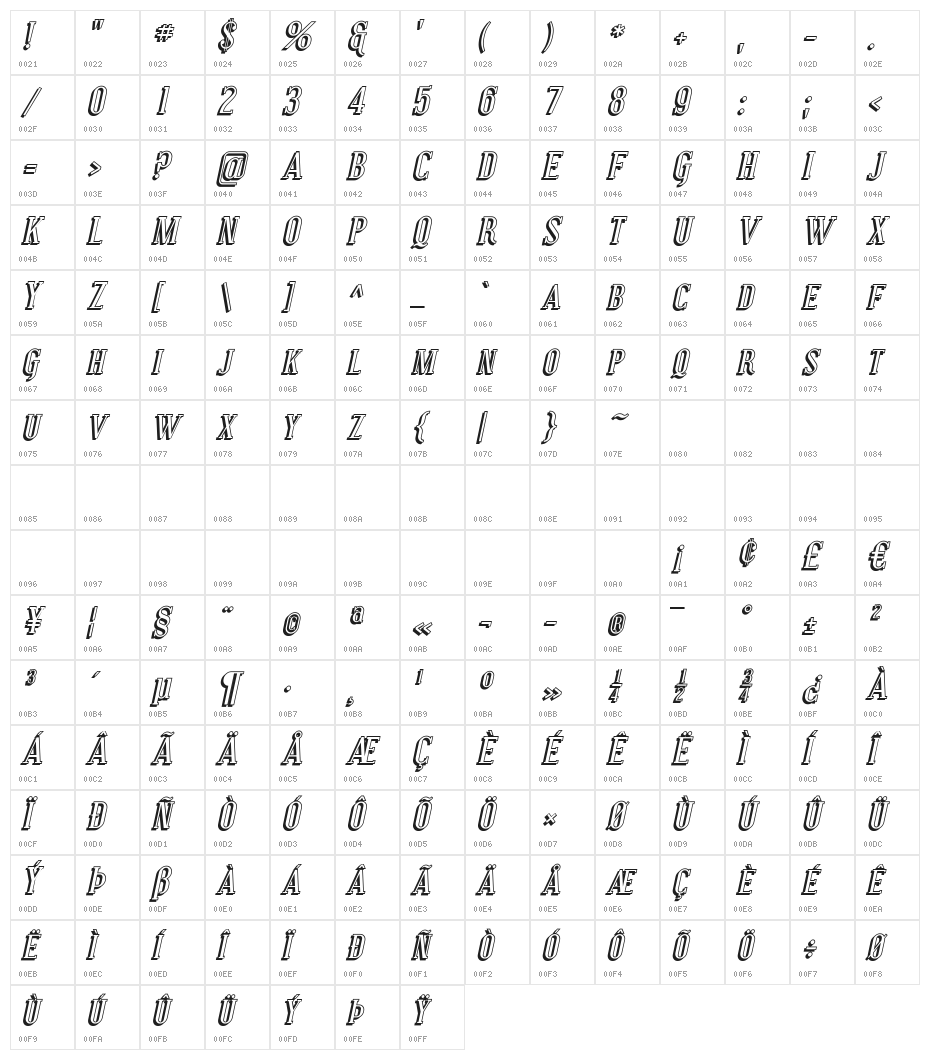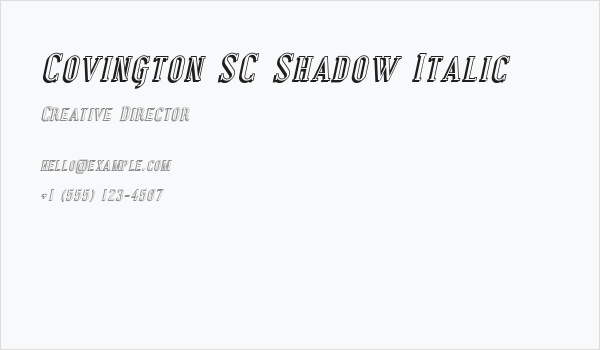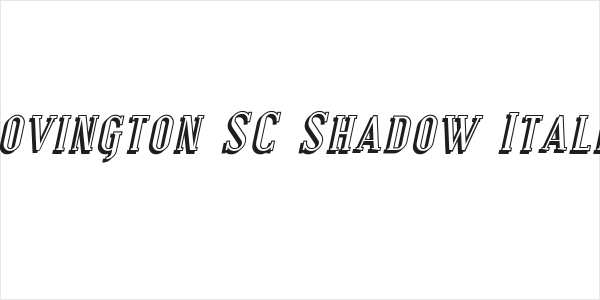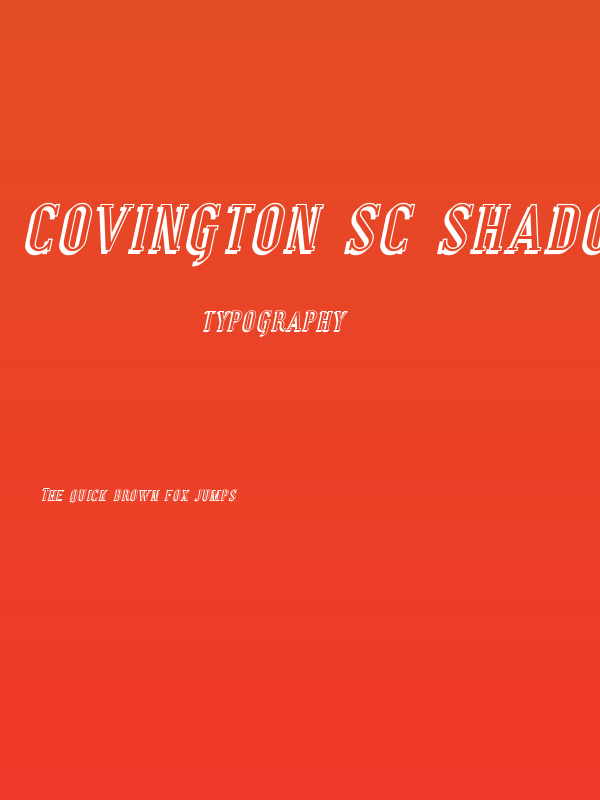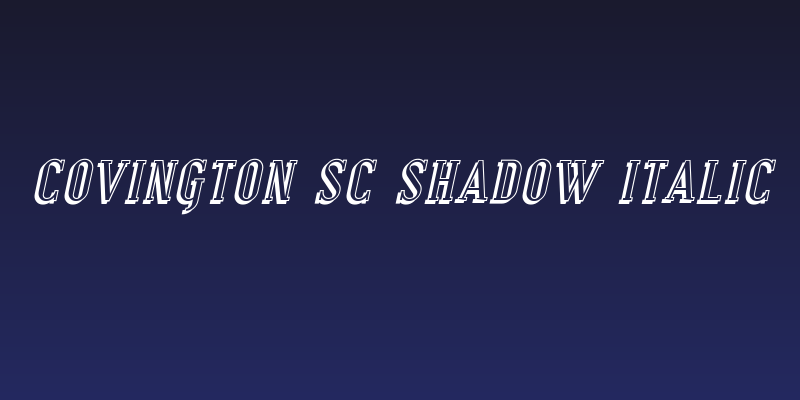
Covington SC Shadow Italic Font
Covington SC Shadow Italic Description
This font features a bold and dynamic design with a distinct shadow effect that adds depth and dimension to each character. The italicized style gives it a sense of motion and elegance, making it stand out in any design. The uppercase and lowercase letters are crafted with precision, showcasing a blend of classic serif elements with a modern twist. The numerals and special characters maintain the same stylistic approach, ensuring consistency throughout. The font's unique shadowing and slanted form make it ideal for creating eye-catching headlines and titles.